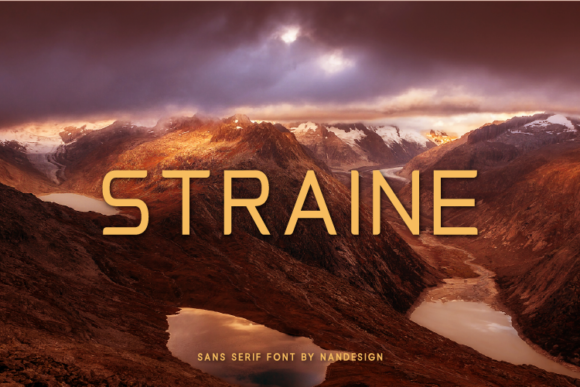
Prepare to be spellbound by the captivating allure of Straine Font, a breathtaking sans serif font that will ignite your creativity and elevate your designs to new heights. Its pristine lines and fluid curves evoke a sense of effortless elegance, while its meticulous attention to detail ensures that every character shines with brilliance.
Indulge in the boundless possibilities that Straine Font presents. Its versatility knows no bounds, effortlessly adapting to any project you envision. Whether you seek to craft captivating logos that leave a lasting impression, or design breathtaking marketing materials that captivate your audience, Straine Font is your ultimate weapon.
Unleash your imagination and embark on a typographic journey like no other. Straine Font's captivating presence will transform your designs into masterpieces, leaving an indelible mark on the hearts and minds of all who behold it. Its timeless beauty transcends trends, guaranteeing that your creations will stand the test of time.
Dare to embrace the extraordinary with Straine Font. Let its ethereal grace elevate your designs, captivating your audience with its undeniable charm. Experience the transformative power of typography as you weave your creative magic, leaving a legacy of unforgettable visual experiences.